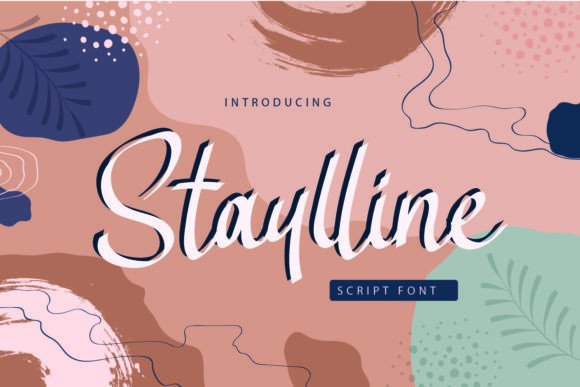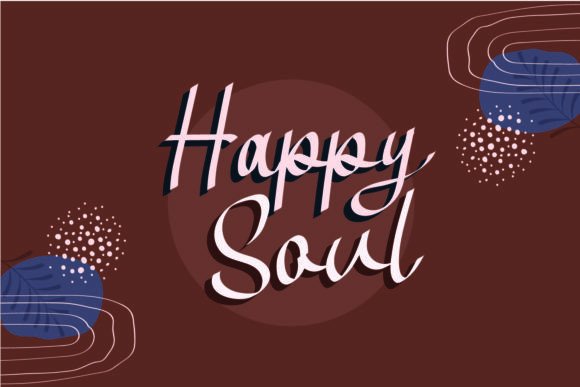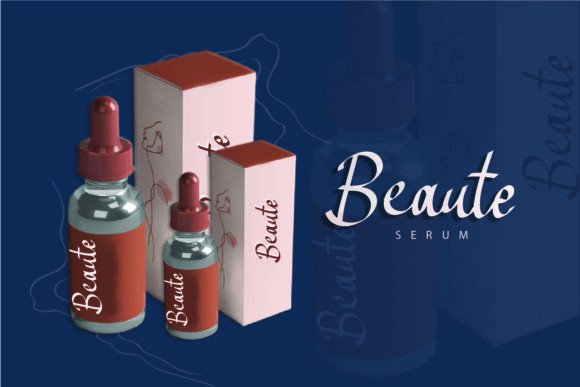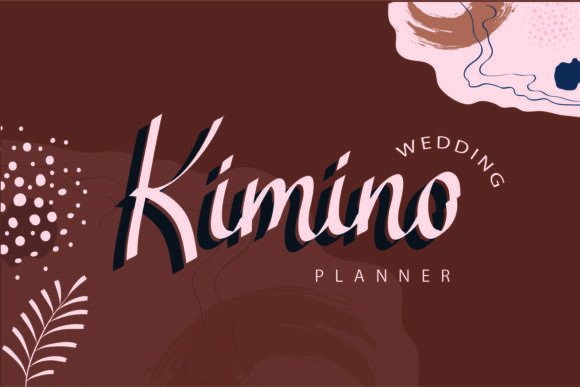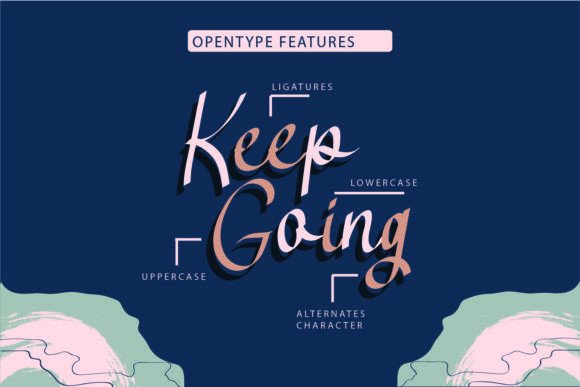
What Is Staylline Font?
Staylline Font is a modern and cool handwritten script designed to give your work a fresh, distinct style. Each letter has clean lines and flowing curves that create a professional yet approachable look. Because of its timeless character, this font is ideal for any project that needs elegance and originality.
You will see how effortlessly Staylline adds impact to your designs.
Staylline is an incredibly versatile font you can apply across many creative areas. For example, it’s perfect for logos and branding. The stylish script helps any brand feel modern, premium, and memorable.
In addition, it works beautifully for wedding invitations and stationery. Whether you design for romantic celebrations or sophisticated events, Staylline adds a graceful touch.
You can also use it for social media graphics and quotes. The smooth lines create visual interest and make your content stand out.
When you design packaging and labels, Staylline instantly elevates the look with an elegant, handmade feel.
Moreover, it’s great for posters, website headers, and personal projects. Even minimalist layouts become more refined with this script.
Why Should You Choose Staylline Font?
There are plenty of reasons to consider Staylline for your next project. First, it’s easy to read, even with its stylish curves. Whether you use large headlines or smaller text, every letter stays clear and smooth.
Also, Staylline pairs perfectly with clean serif or sans-serif fonts. This helps you create modern, balanced compositions effortlessly.
Designers love that it looks polished straight out of the box, saving time while delivering professional results.
Staylline Font brings style and originality to every project. For example, when you want your designs to feel unique and memorable, this font makes it easy.
Even minimalist layouts look more engaging with Staylline’s flowing, handcrafted strokes. Whether you create branding, wedding materials, or social content, your work will stand out.
Using a premium handwritten script also shows your commitment to quality and detail. This builds trust with your audience and makes your designs more impactful.
Staylline Font is more than just a typeface—it’s a design tool that helps you communicate ideas with clarity and beauty. From logos and packaging to invitations and quotes, this font adapts easily and leaves a lasting impression.